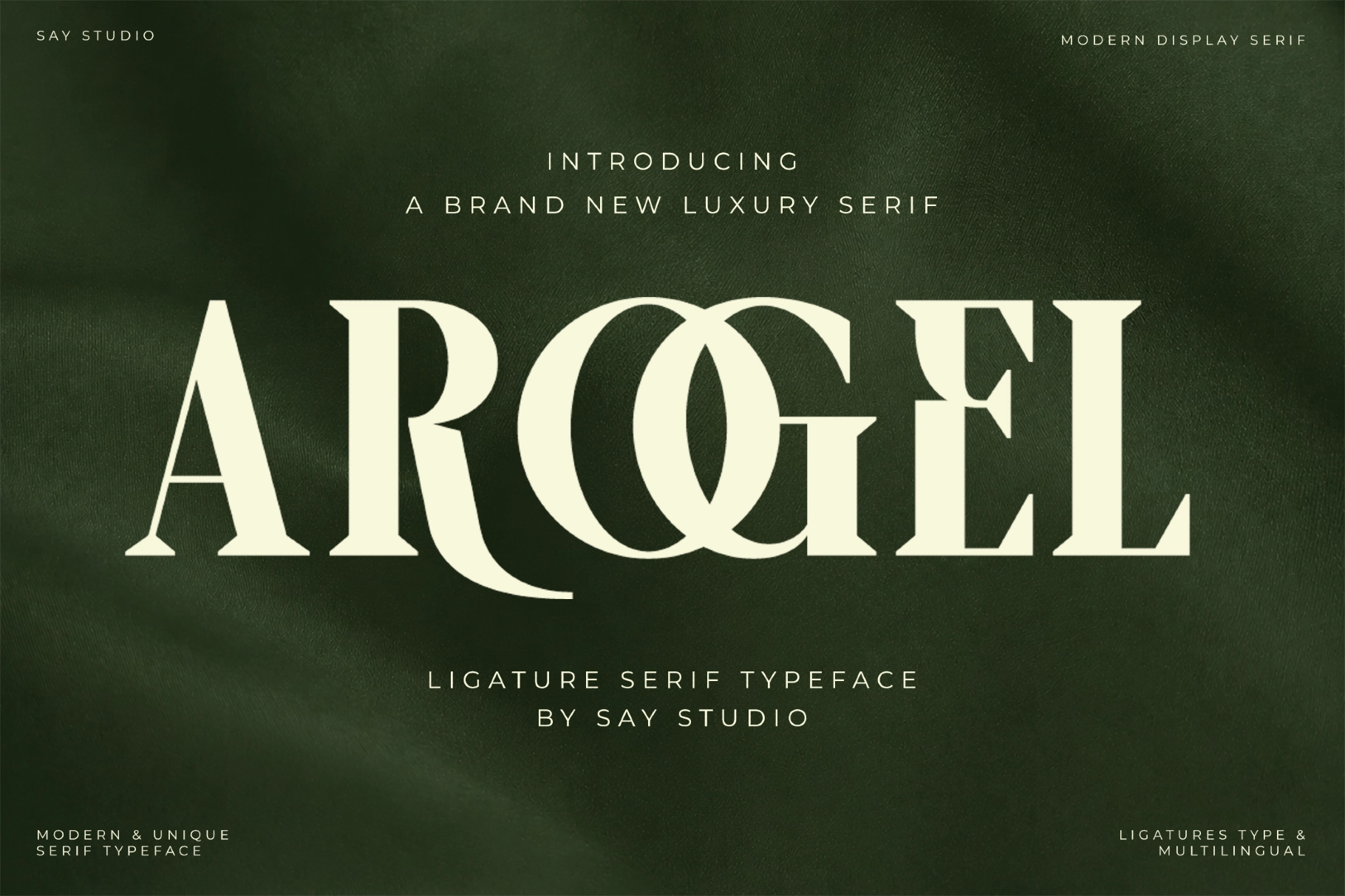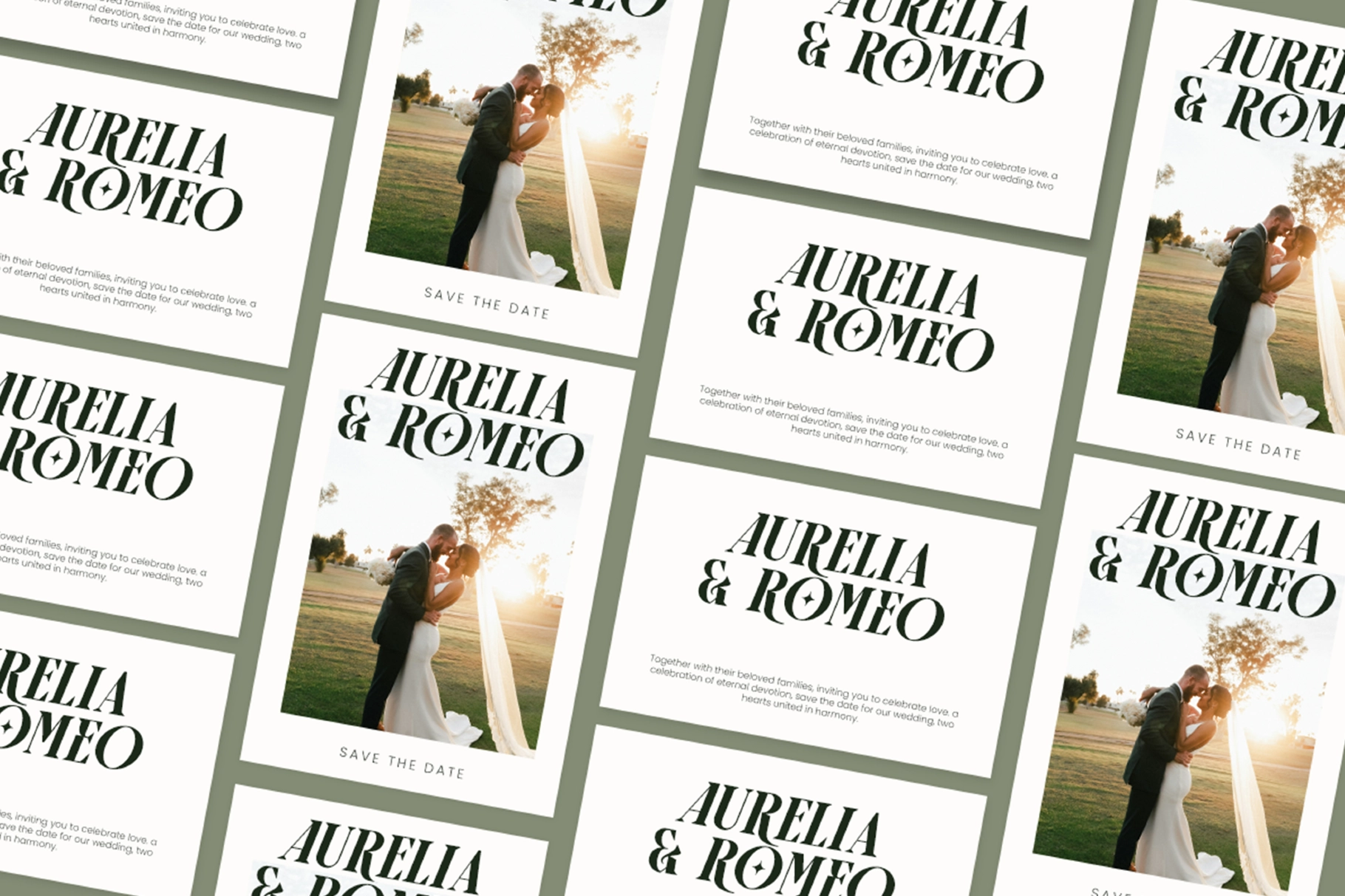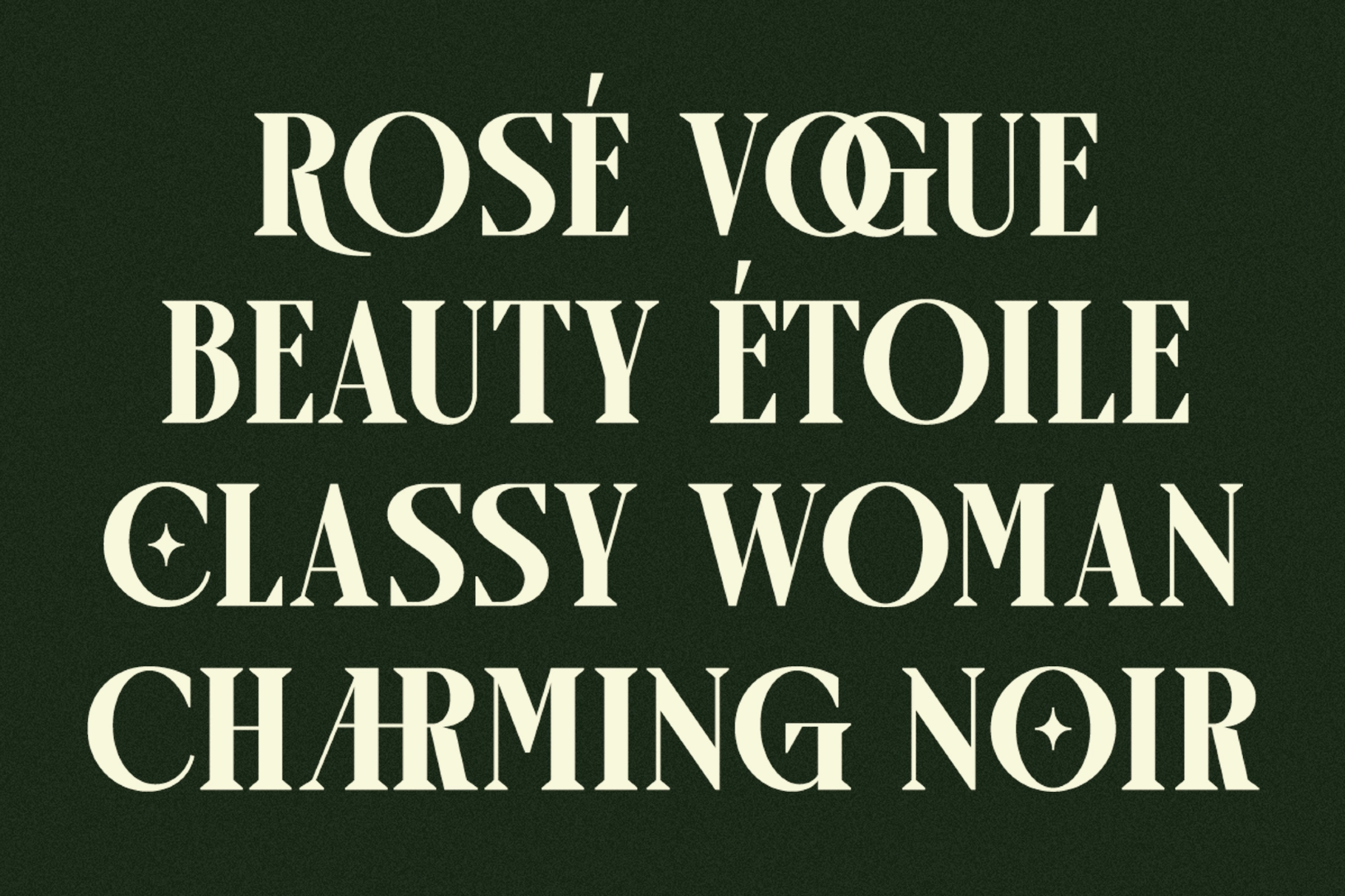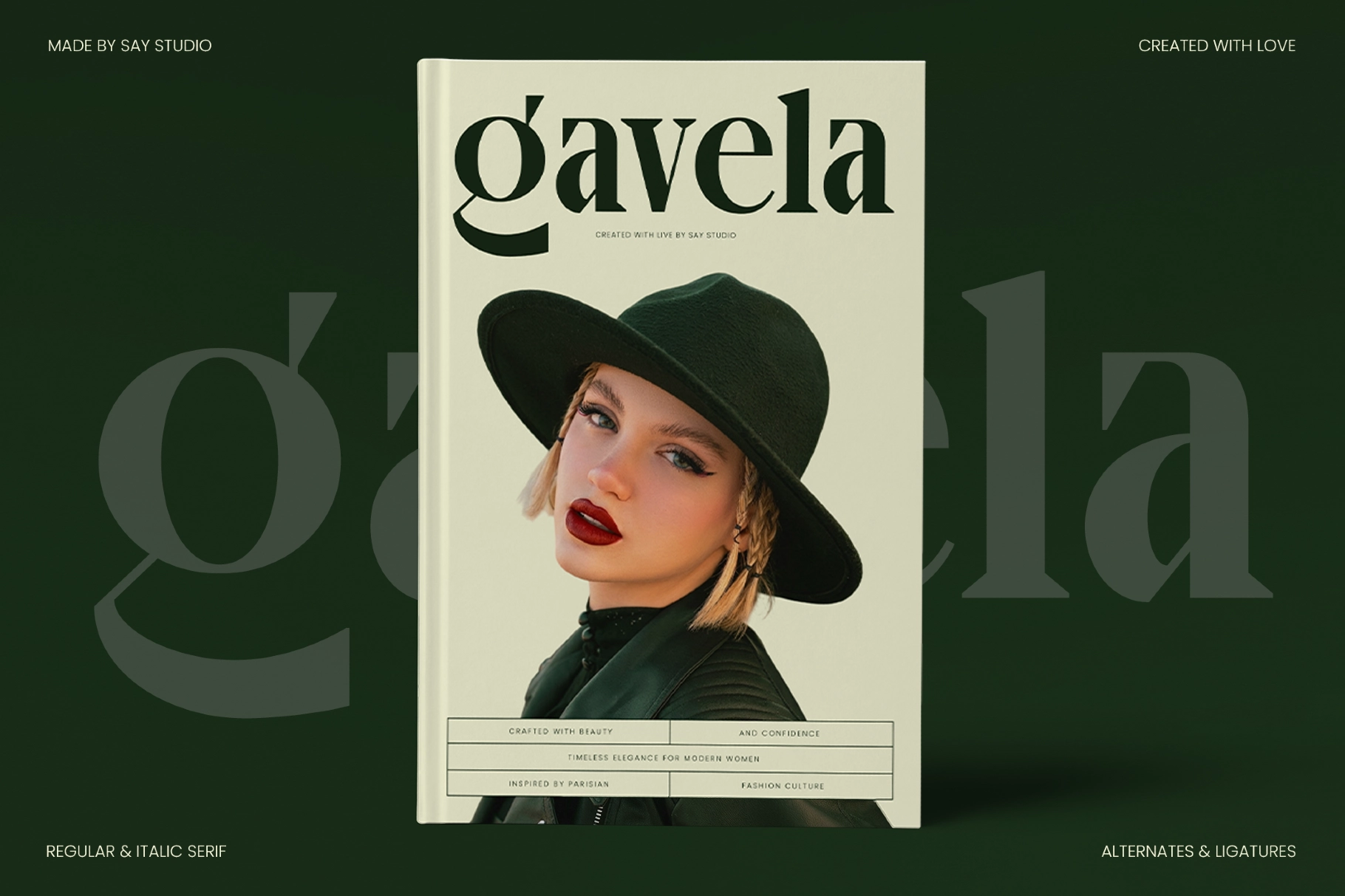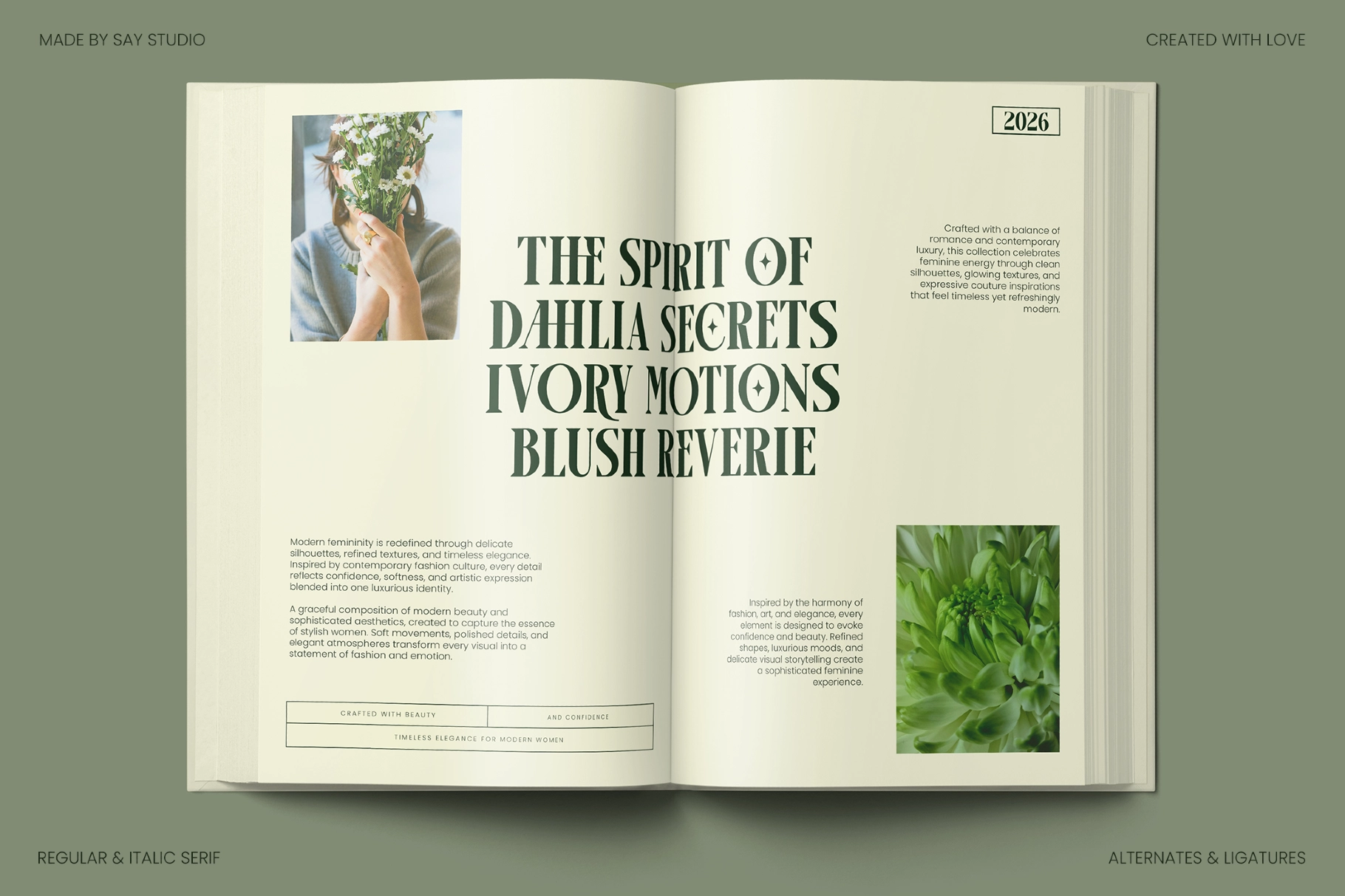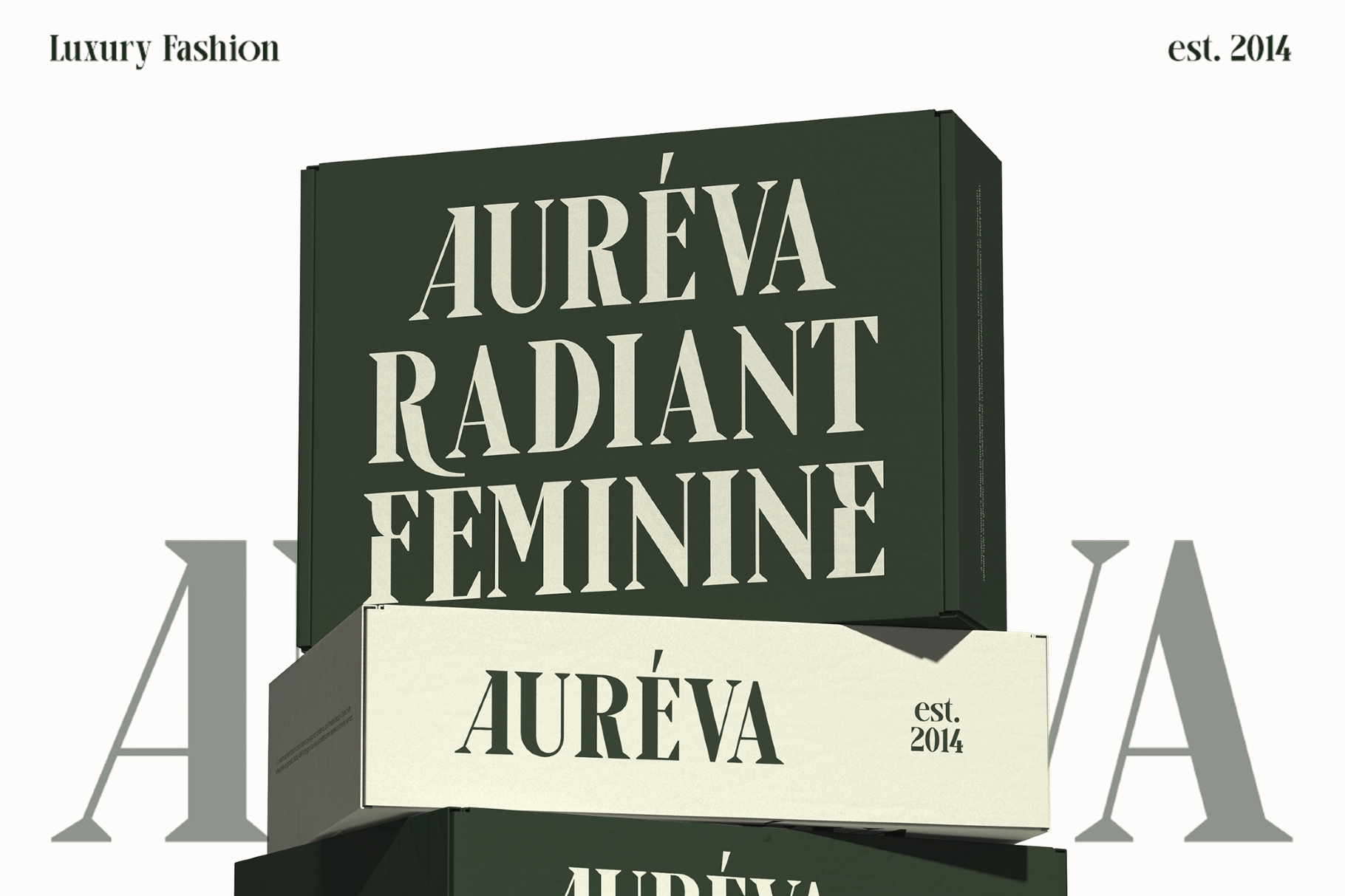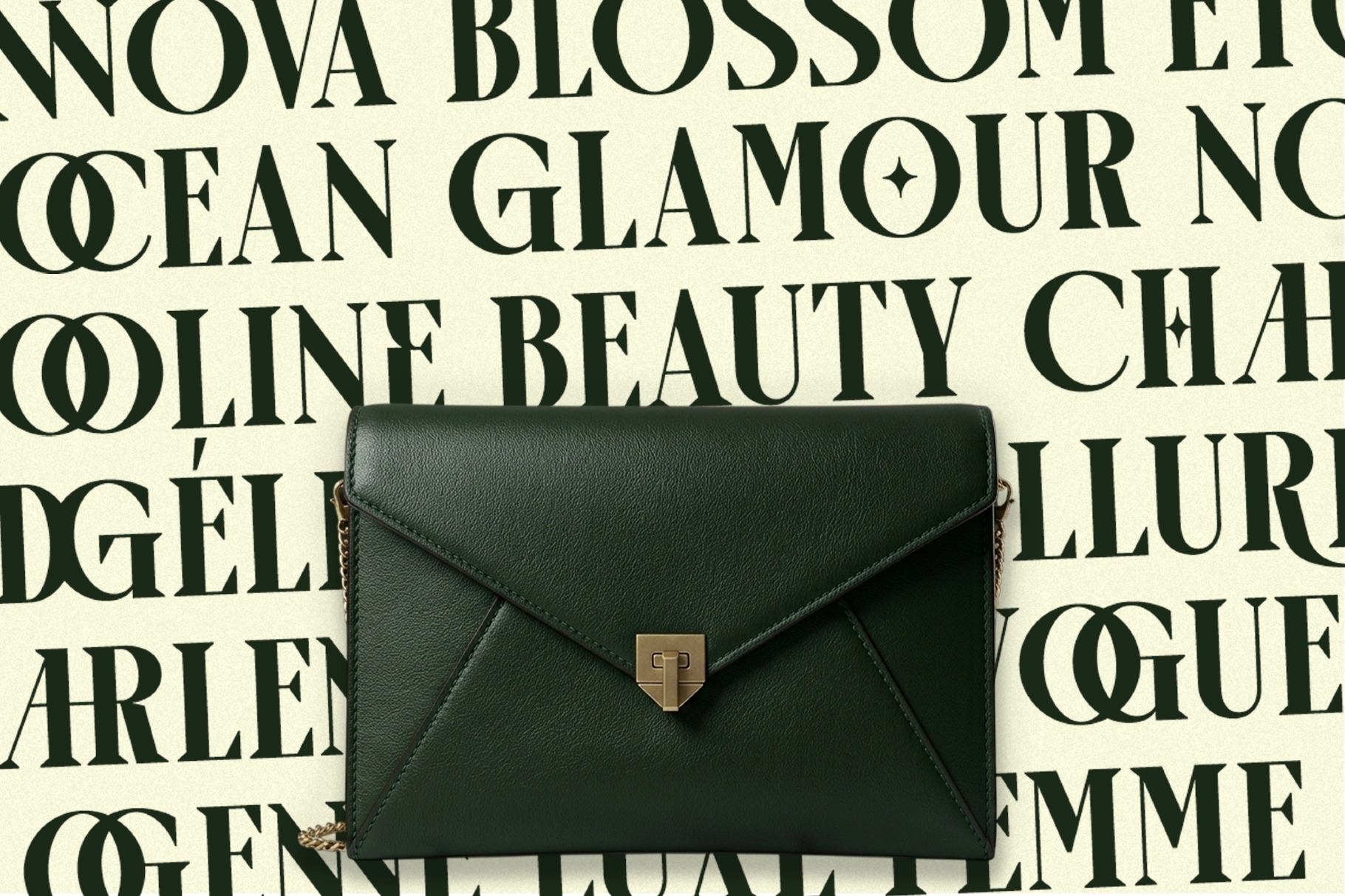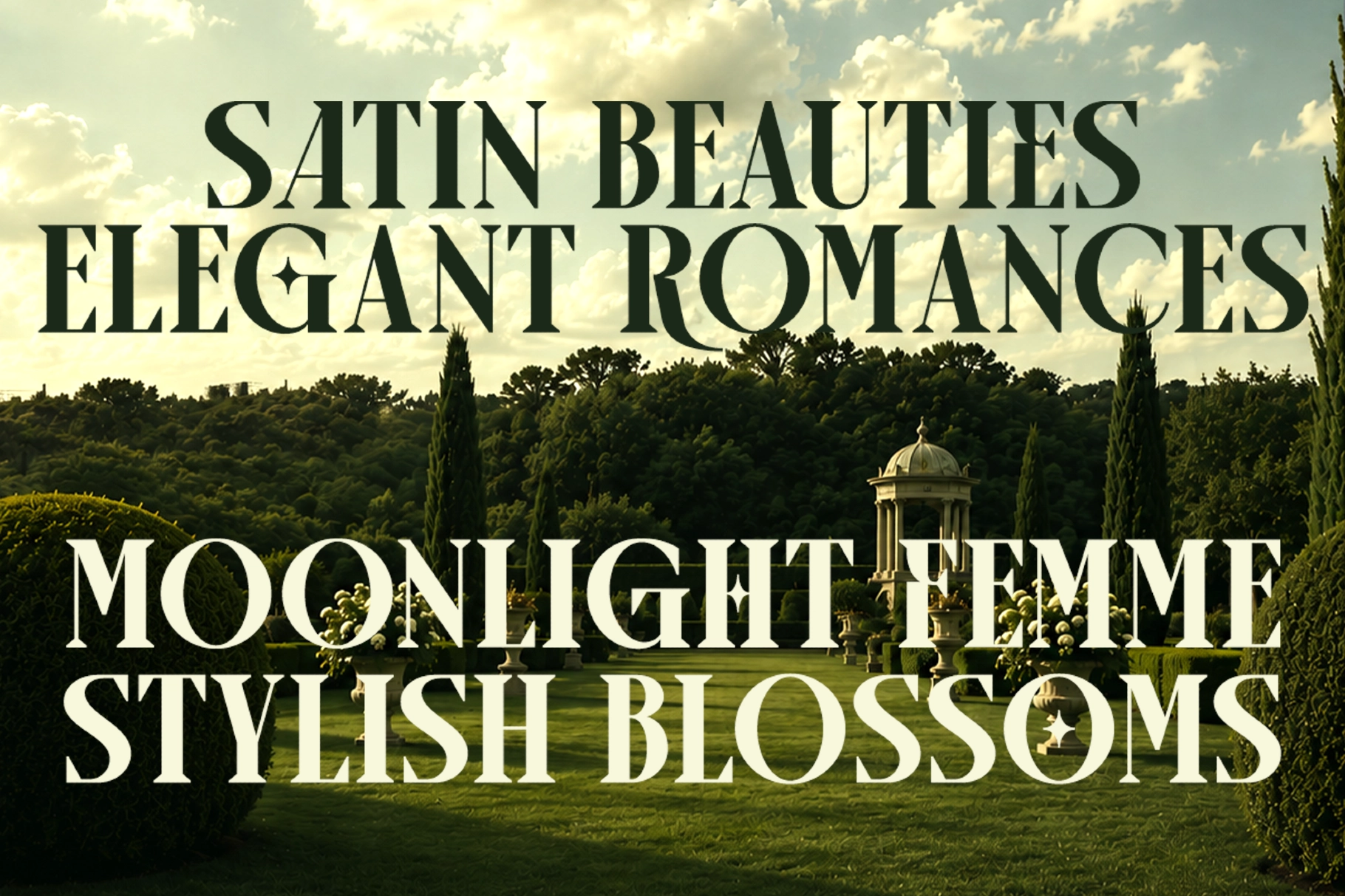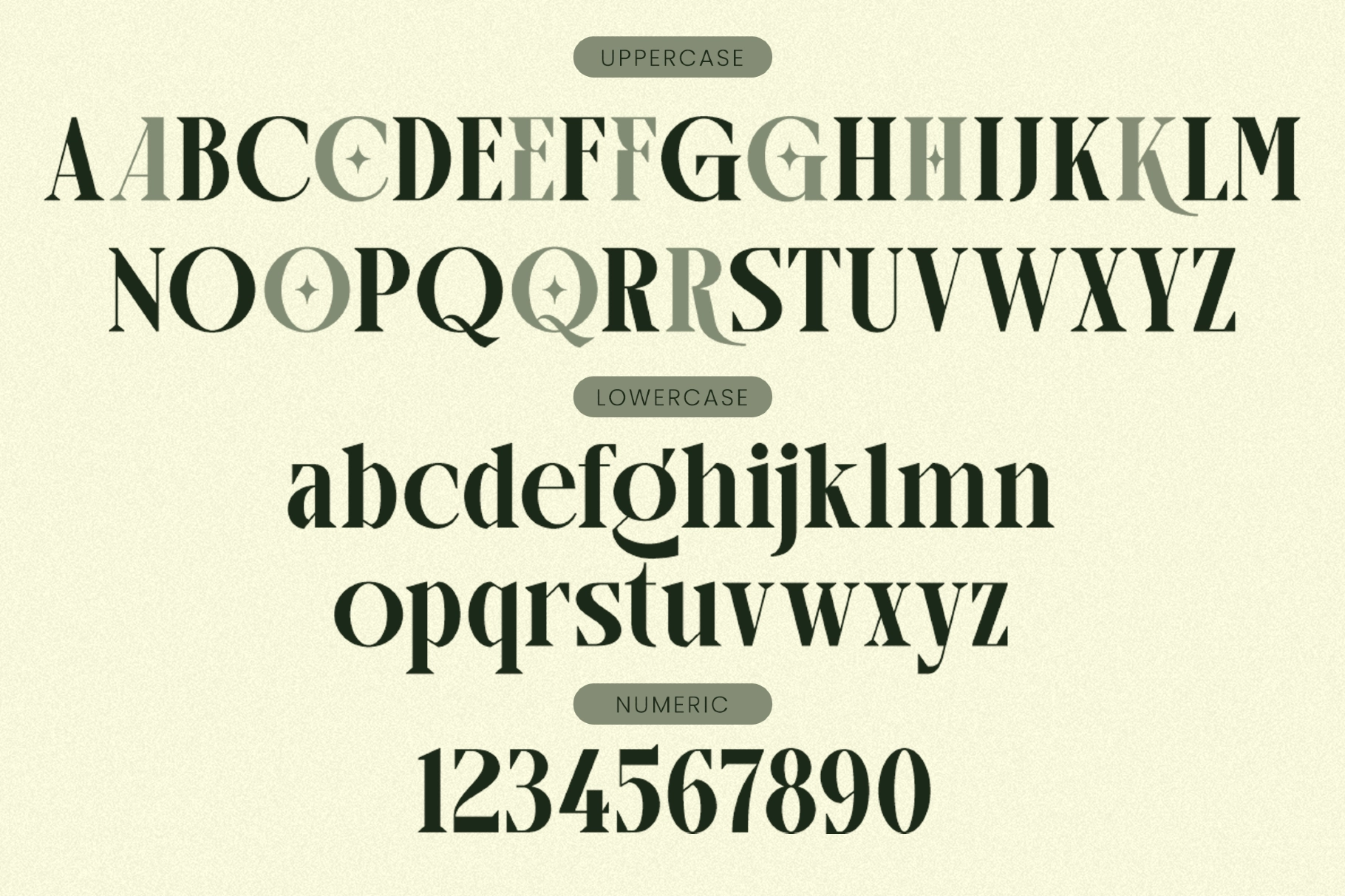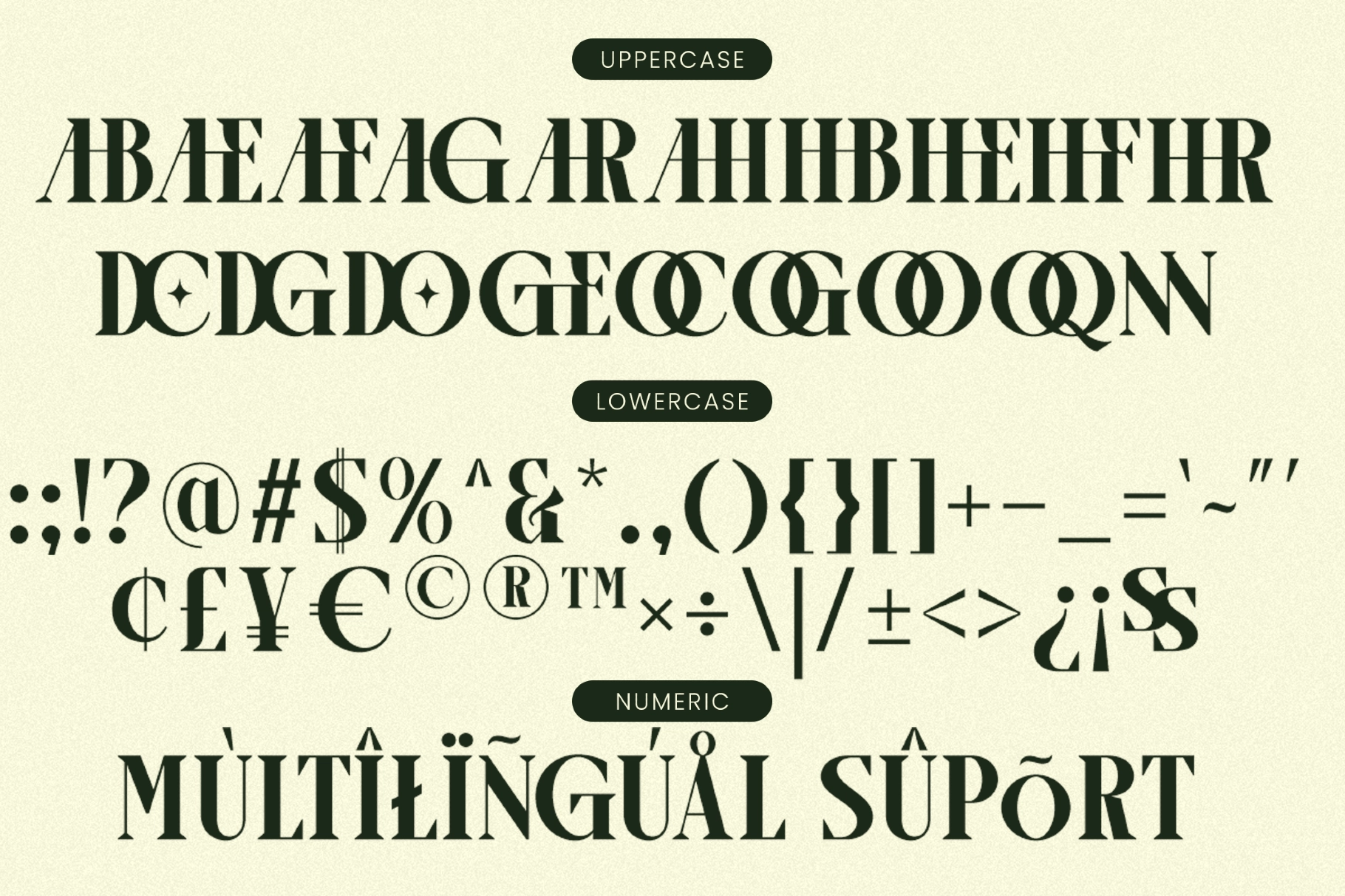
Arogel - Luxury Display Serif Font
This luxury serif font is all sharp contrast, sculpted curves, and high-fashion restraint, with dramatic ligatures that make short words look like campaign headlines. The letterforms are polished and poised, with decorative cuts and star-like details that give branding work a glossy editorial signature.
Arogel is a natural choice for fashion labels, beauty packaging, jewelry branding, boutique logos, perfume labels, magazine covers, wedding stationery, lookbooks, luxury social posts, product launches, hotel identities, invitation suites, and more. The Regular and Italic styles make it useful for refined headline systems, graceful wordmarks, and upscale layouts that need strong typographic character.
- 2 styles: Regular, Italic
- Stylistic Ligatures